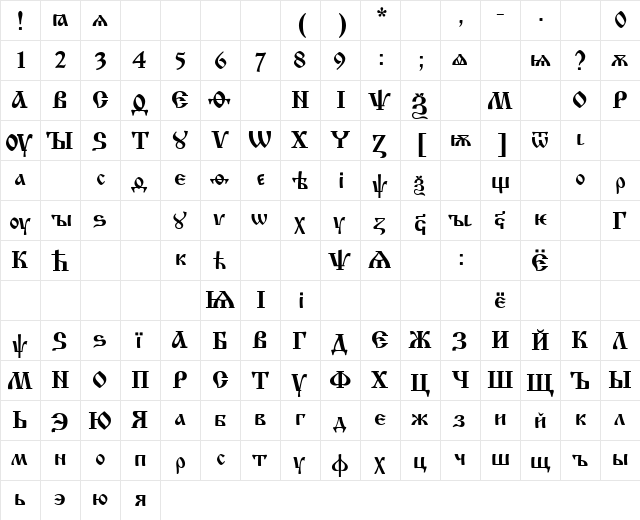
Izhitsa Cyrillic
Design Context for Izhitsa Typeface
Izhitsa takes a measured approach to typography — its balanced proportions and neutral character make it a reliable workhorse for both digital and print work.
Pro Tip: Use Izhitsa in both headline and body roles to test its range before committing to a single application.